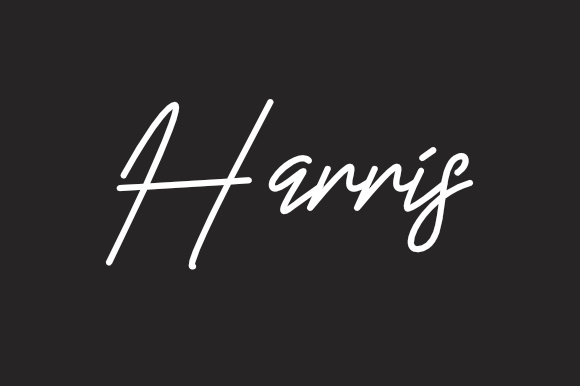
Dive into the world of exquisite typography with Harris Font, a mesmerizing script typeface that captivates hearts and ignites creativity. This masterpiece, crafted by the renowned Harisprawoto, is a true gem in the realm of calligraphy. Its graceful strokes and elegant curves dance across the digital canvas, leaving a trail of visual enchantment.
Harris Font is a symphony of sophistication, perfectly suited for designers, bloggers, and creative entrepreneurs seeking to elevate their projects to new heights of allure. Its versatility knows no bounds, effortlessly adapting to a myriad of design endeavors.
Unleash the power of Harris Font to craft captivating logos that command attention and leave a lasting impression. Let your imagination soar as you design mesmerizing posters that transport viewers to a world of dreams. Create enchanting invitations that hint at the magic awaiting guests at your special event.
With Harris Font as your creative companion, you possess the key to unlock a treasure trove of possibilities. Transform ordinary text into extraordinary works of art, captivating your audience with every stroke. Its timeless aesthetic and undeniable charm will elevate your designs, making them stand out from the crowd.
Embrace the beauty of Harris Font and embark on a journey of creative exploration. Let its allure captivate your senses and ignite your passion for design. Seize this opportunity to elevate your projects and unleash your inner artist.